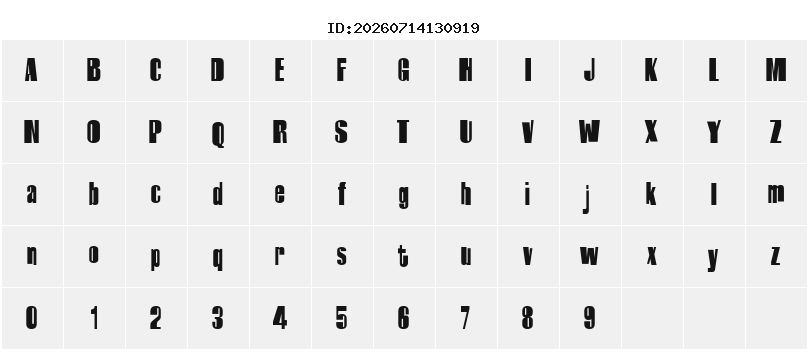
Harlem Preview
• Font Name: Harlem
• Font ID: Macromedia Fontographer 4.1 Harlem Bold
• Full Font Name: Harlem Bold
• PostScript Name: HarlemBold
About Harlem.ttf
Harlem.ttf is a modern, elegant sans-serif font designed for ultimate readability and visual harmony. Perfect for branding, headlines, web design, and print materials.